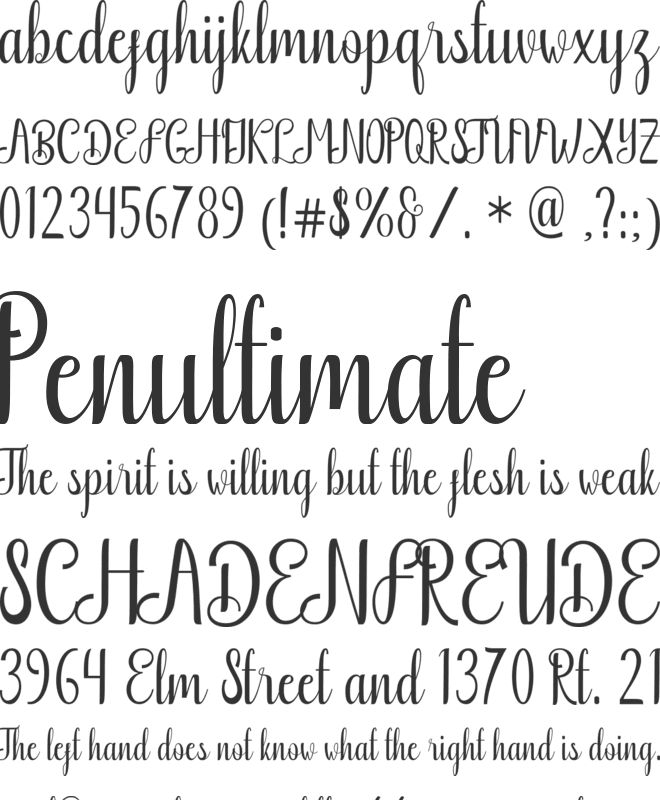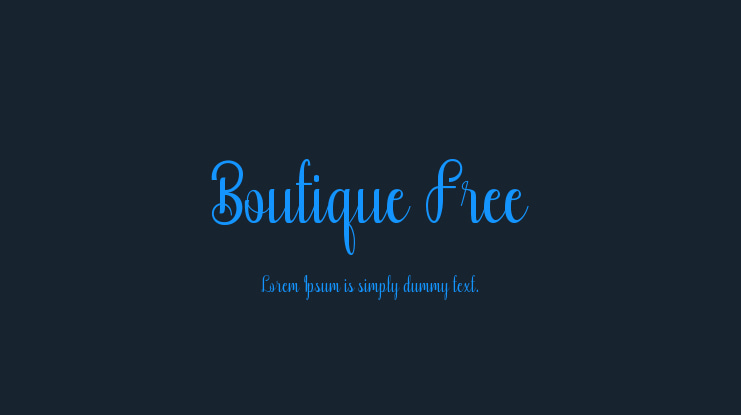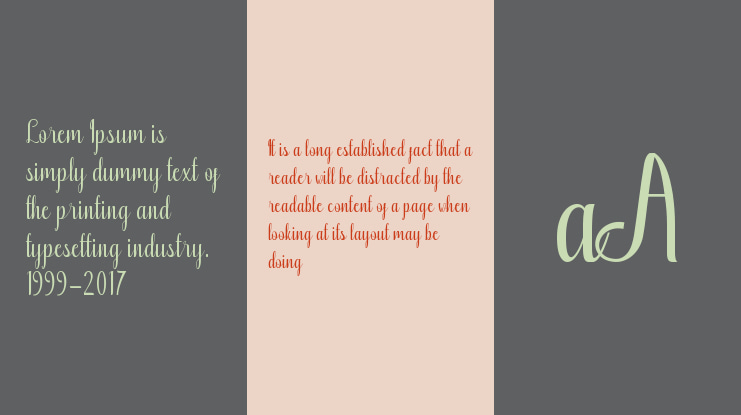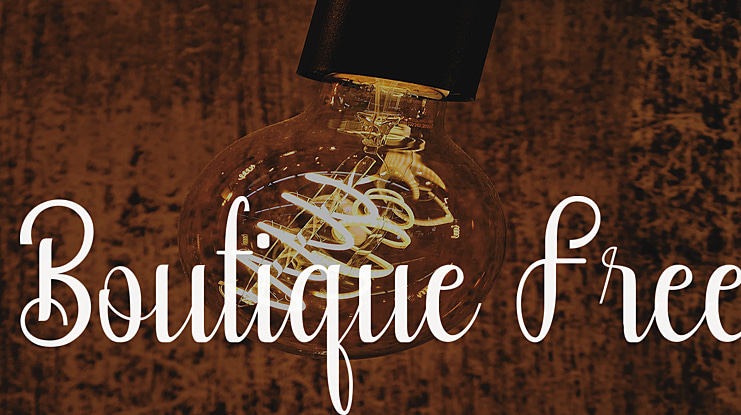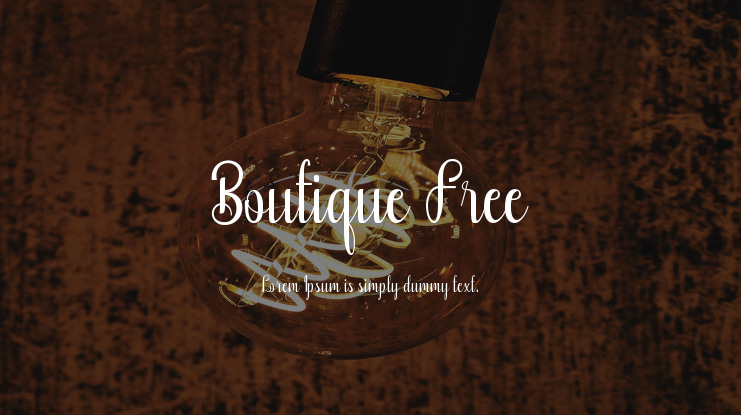
Boutique Free Font
Boutique is a script font that has the characteristic handwriting, it is very suitable to make certain label and event business and you could be using for a unique piece. Visit here to get full version